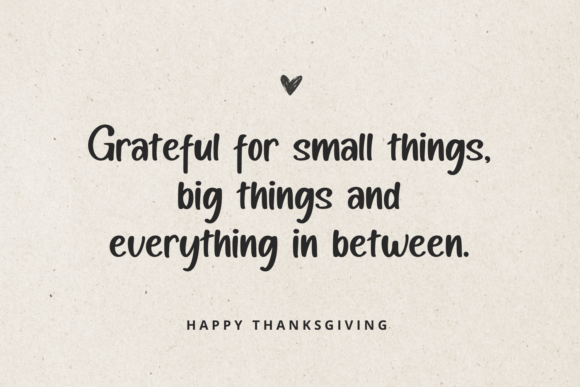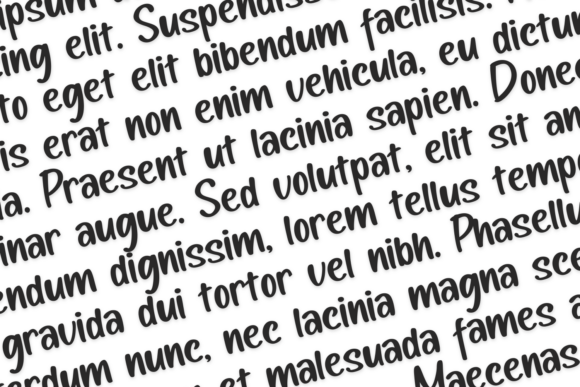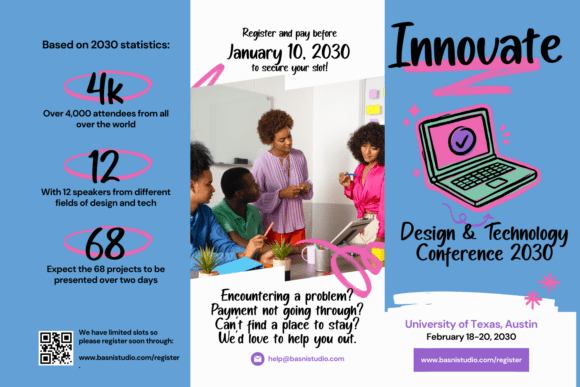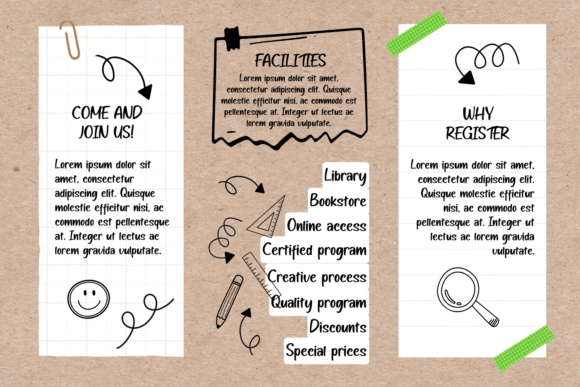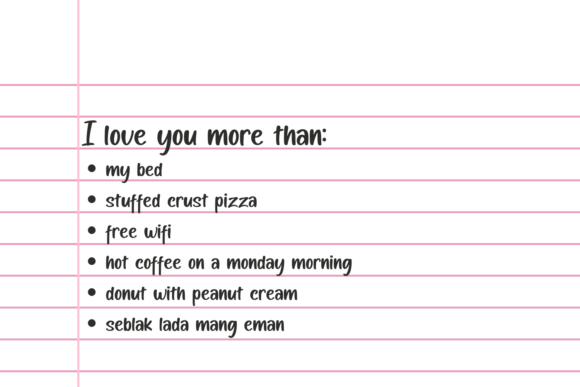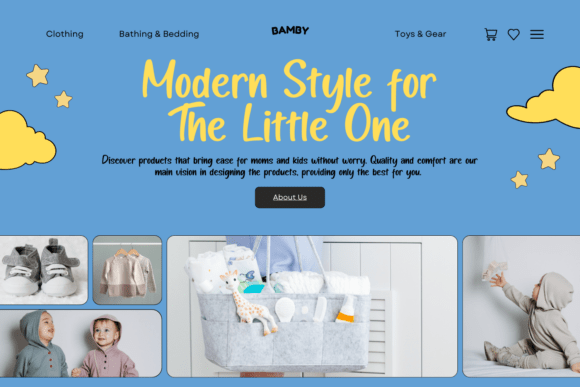
Introduction to Miau Miou Font
Miau Miou – Casual Handwritten Font for Branding Created with real pen strokes for a natural look and casual touch to everything from branding and social media to invitations and packaging.
Miau Miou – Casual Handwritten Font for Branding Created with real pen strokes for a natural look and casual touch to everything from branding and social media to invitations and packaging. Natural &
Key Features of Miau Miou Font